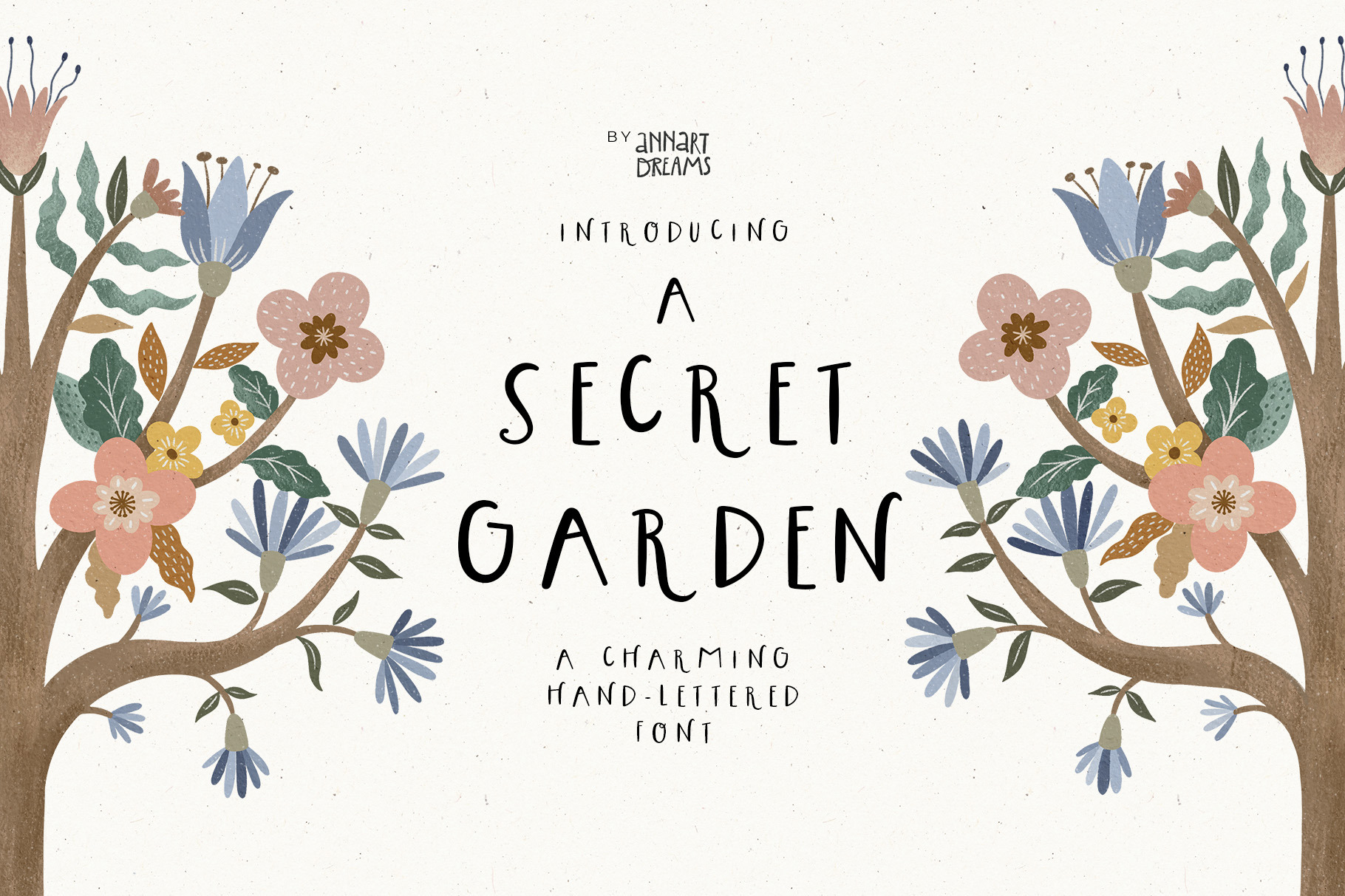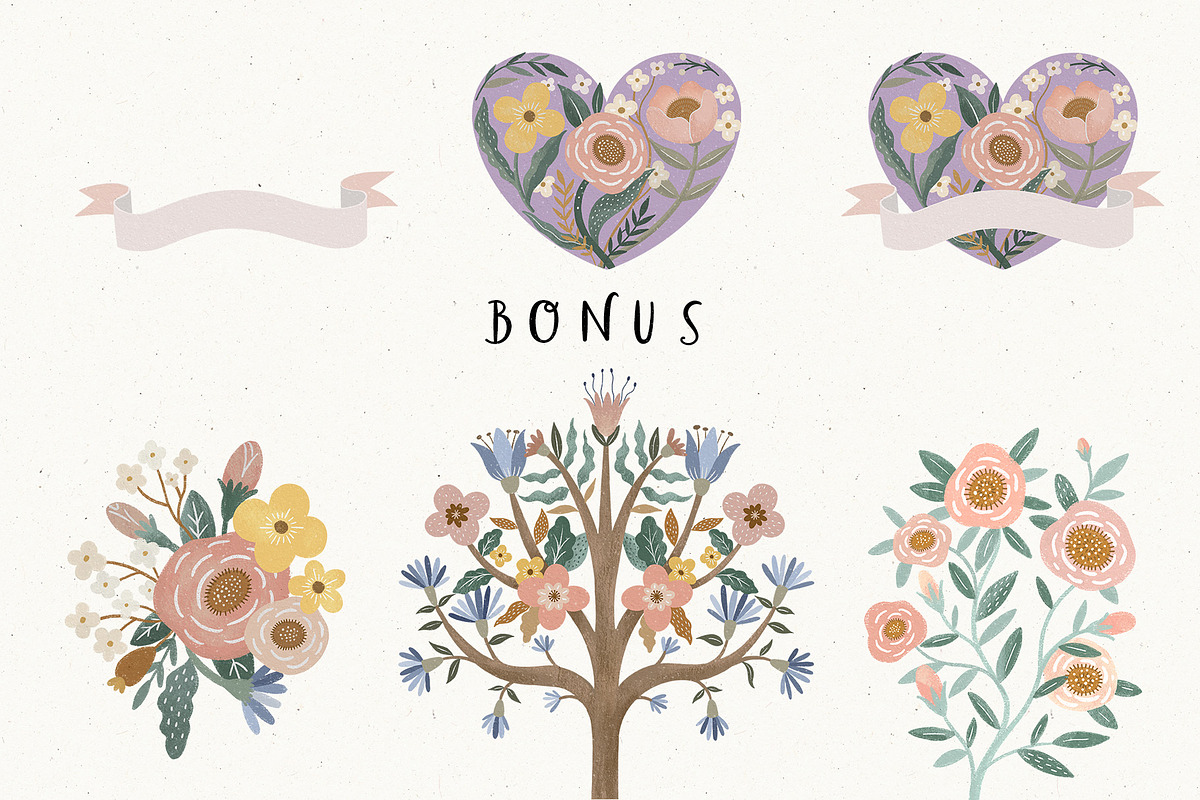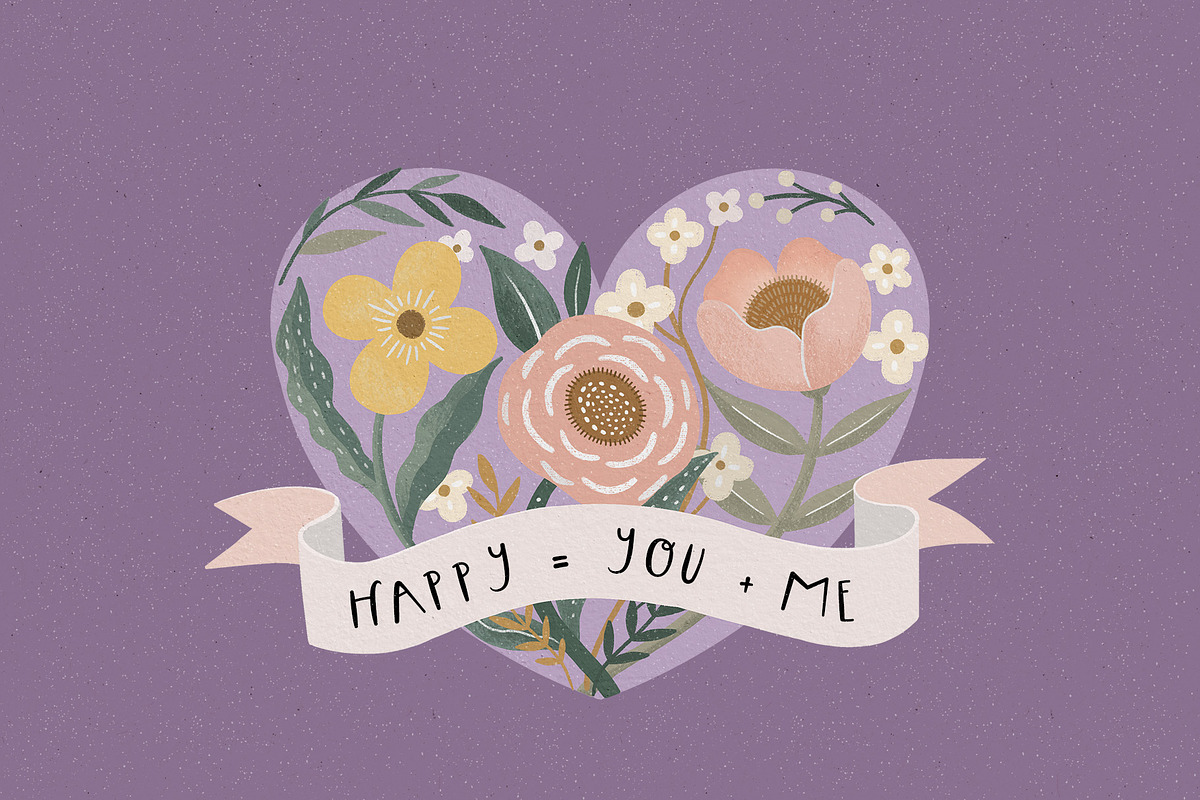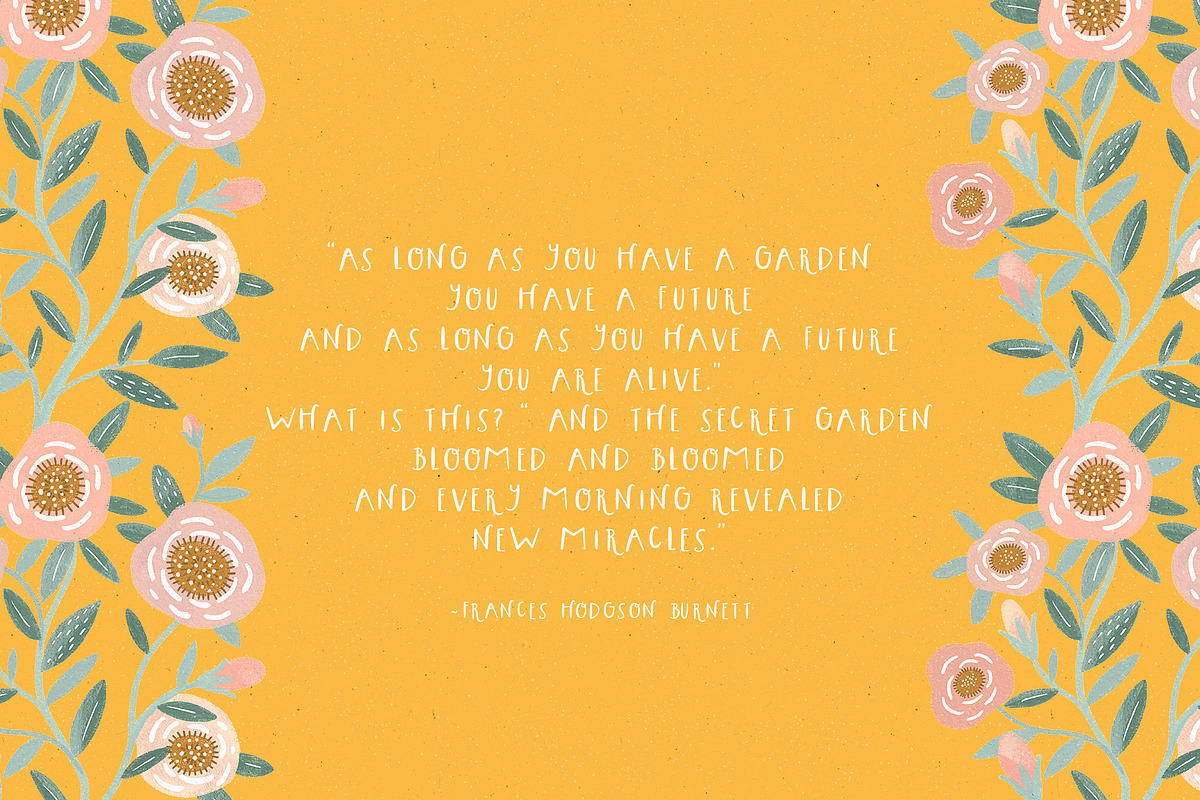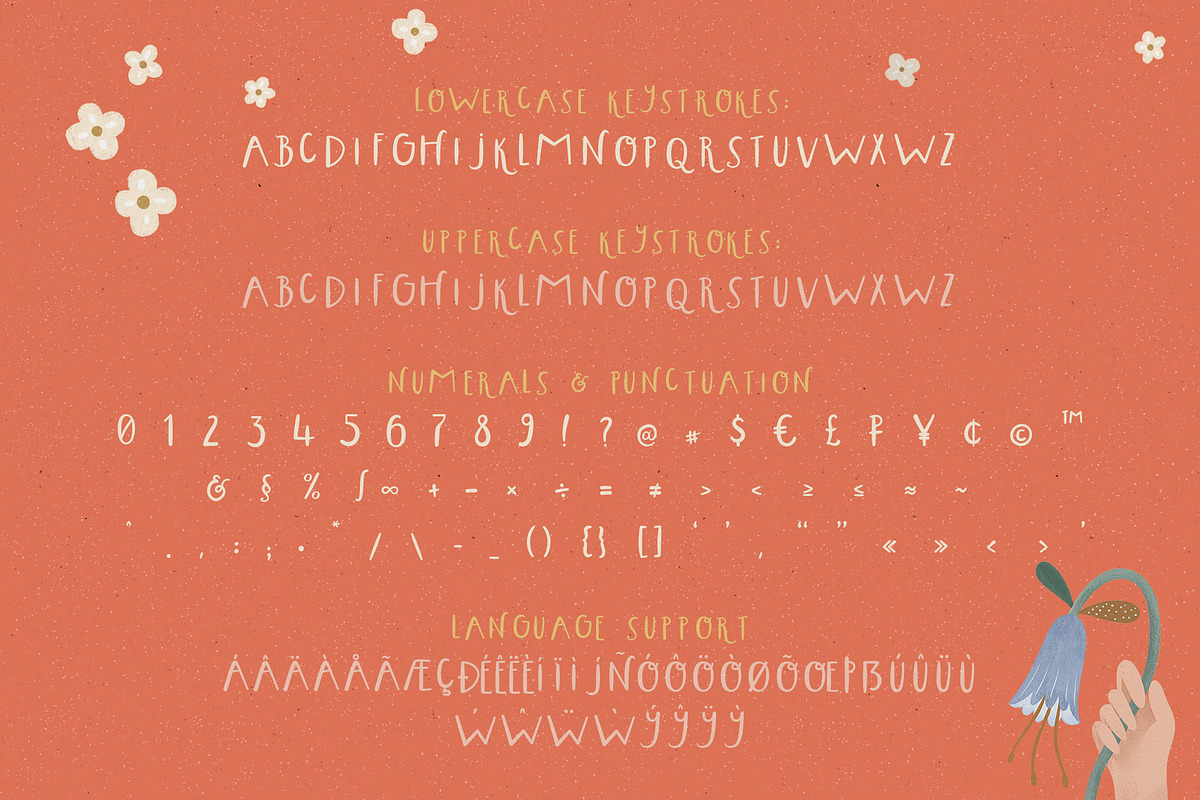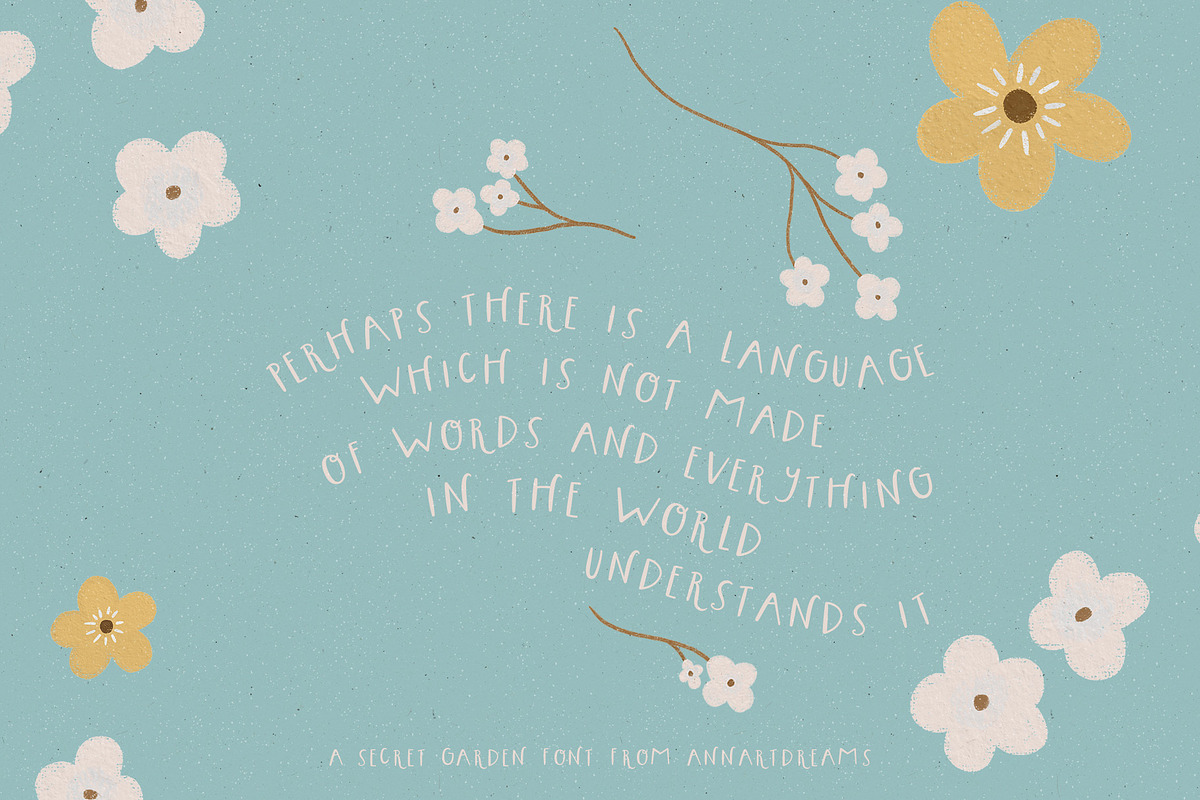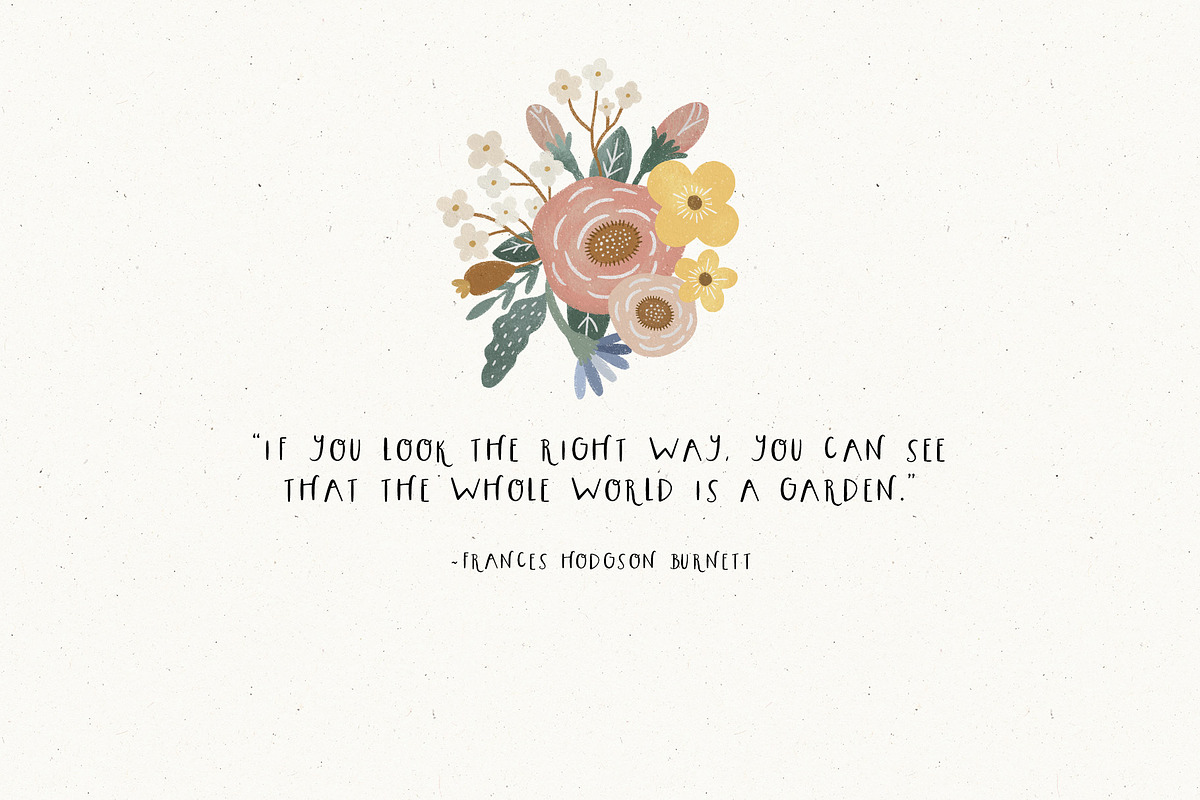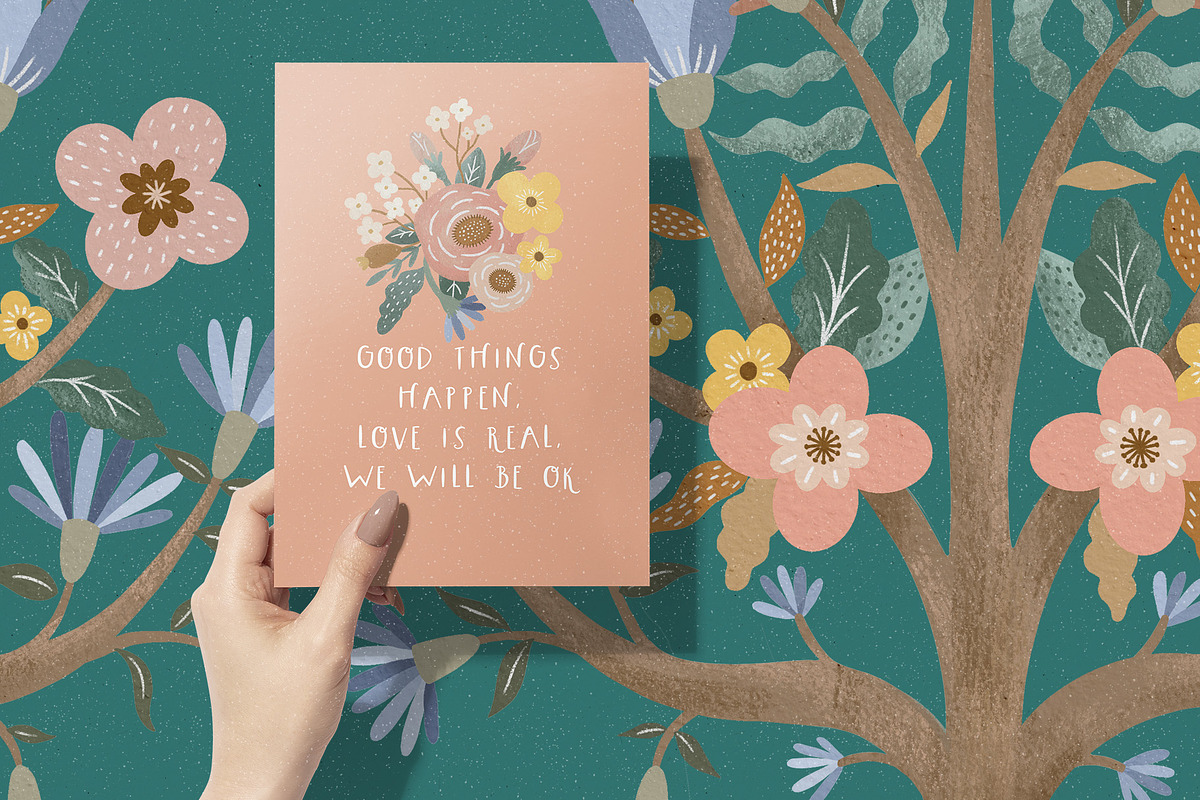
A Secret Garden font
Introducing A Secret Garden✨
A sweet, playful font great for beautiful quotes, children's books, quirky greeting cards, fun packaging design, playful branding, and so much more!